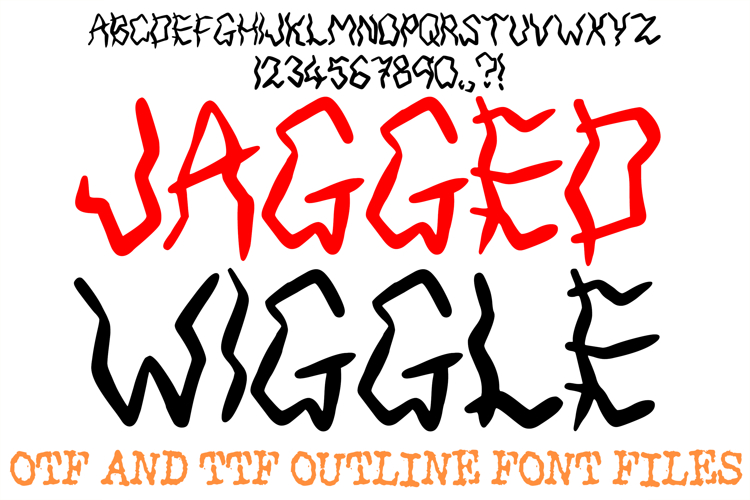
The Jagged Wiggle Font, is an electric, high-vibration display typeface defined by its erratic, lightning-fast strokes and shaky, non-uniform outlines. Featuring sharp zig-zags and unpredictable, trembling lines, this font is a premier choice for designers developing rock or punk concert posters, edgy comic book titles, horror game interfaces, and high-energy streetwear graphics.
The design captures a sense of raw, jittery motion, as if the letters themselves are buzzing with static electricity or trembling with adrenaline. Whether you are creating a chaotic, counter-culture aesthetic for an indie zine or designing standout headlines for a youth-focused alternative brand, this font delivers a striking, rebellious energy that instantly disrupts traditional layouts.
Electric Jittery Outlines: The shaky, vibrating perimeters create an immediate sense of movement, tension, and raw psychological energy on the page.
Sharp, Lightning-Like Angles: Abrupt, jagged directional changes give characters like the 'A', 'G', and 'W' a rebellious, counter-culture edge.
Authentic Hand-Drawn Chaos: The intentionally unpredictable stroke widths offer an organic, unpolished feel that completely rejects rigid digital symmetry.
High-Voltage Display Impact: The distinct, lightning-bolt structure ensures that titles and logos stand out vividly against busy backgrounds and dark themes.